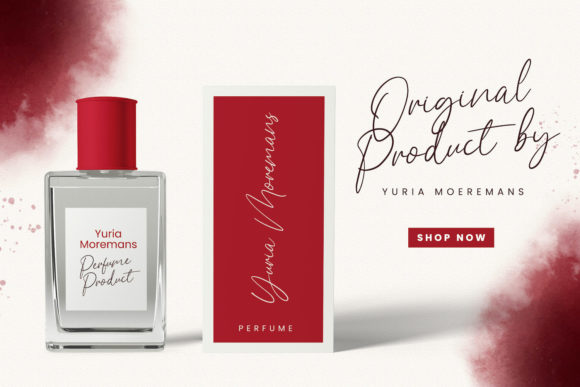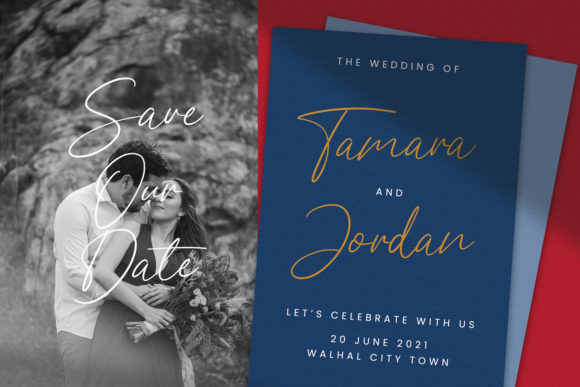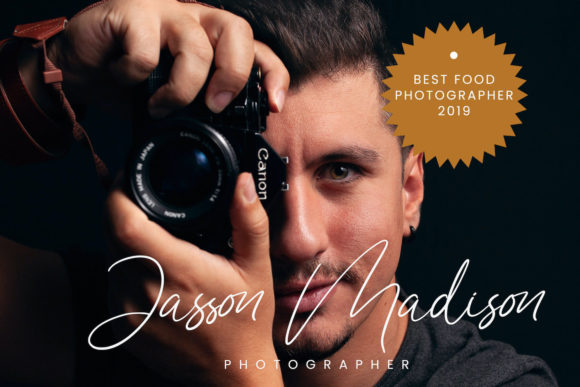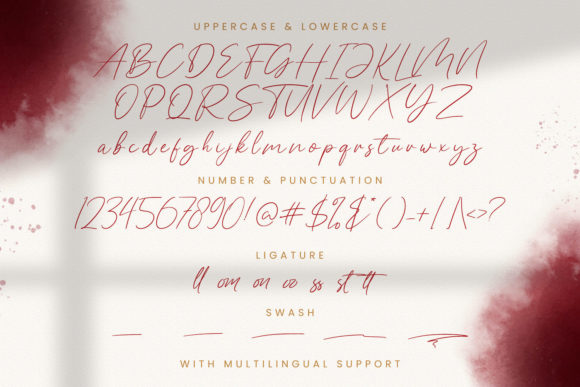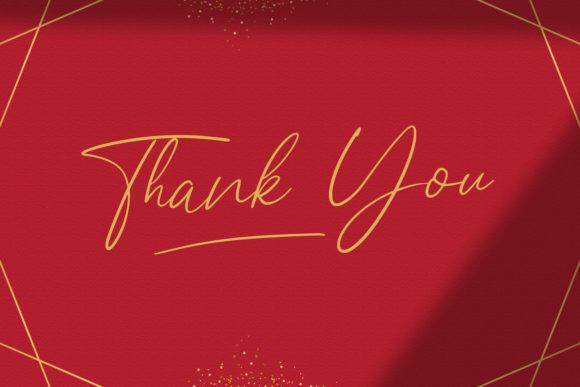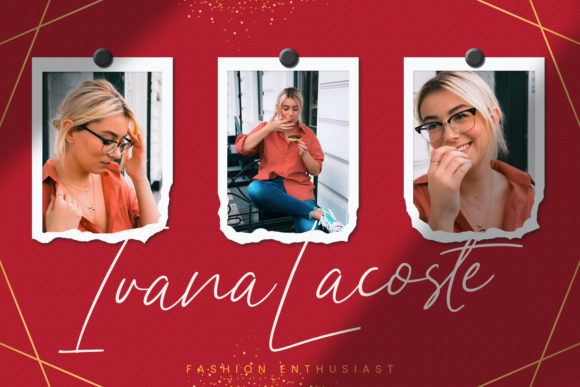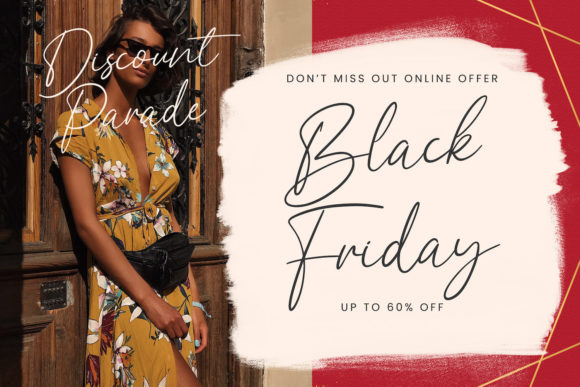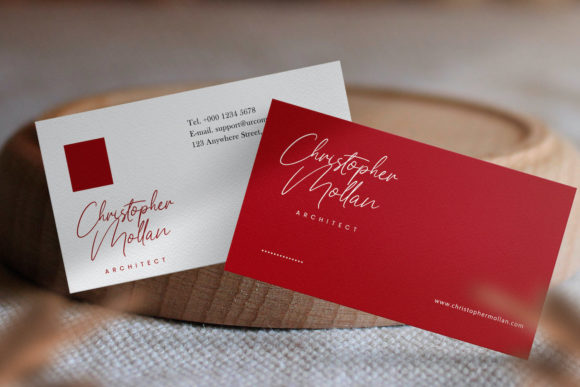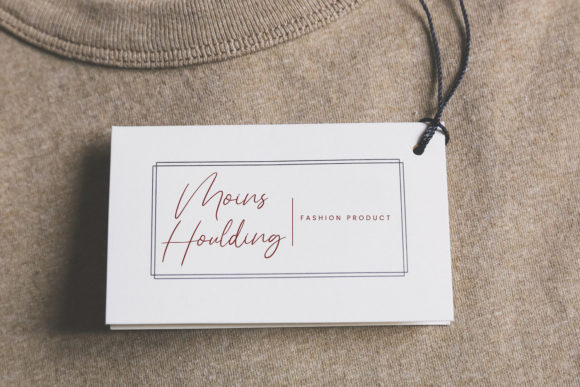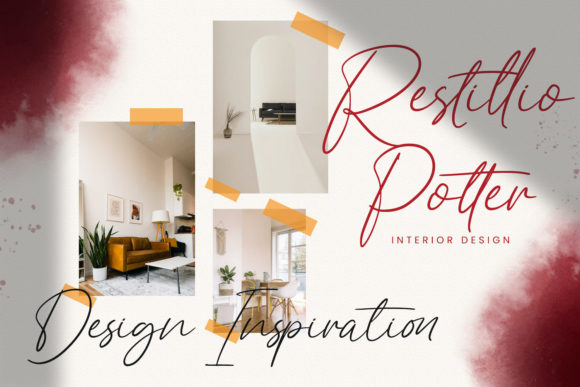
Saling Cinta Font
Saling Cinta is a delightful and cursive script font that brings a sweet and personal touch to any design. Its elegant and flowing letterforms make it perfect for projects that require a romantic and personalized feel.
Whether you’re creating wedding invitations, love letters, greeting cards, or any design that aims to convey emotions, Saling Cinta will add a touch of charm and romance. Its graceful curves and intricate details create a sense of elegance and sophistication, making it a great choice for projects that need a personalized and intimate touch.
With its versatile style, Saling Cinta can be used in various contexts and applications. It can be applied to branding and logo design, adding a sense of warmth and familiarity to your brand identity. It can also be used for social media posts, quotes, and other creative projects, allowing you to express your message with a touch of sweetness and sentimentality.
Fall in love with Saling Cinta’s incredibly versatile style as you explore its potential to create spectacular designs. The font’s intricate details and beautiful curves make it stand out and capture attention, while its cursive nature adds a sense of fluidity and elegance to your typography.
Saling Cinta allows you to express your creativity and showcase your unique style. Its swashes and alternate characters provide additional options to customize and personalize your designs, giving you the freedom to create something truly special.
In summary, Saling Cinta is a sweet and cursive script font that adds a personalized touch to any design. Its versatile style and elegant letterforms make it ideal for a wide range of projects, including wedding invitations, branding, social media posts, and more. Fall in love with its charm and versatility as you create spectacular designs that capture the essence of your message.